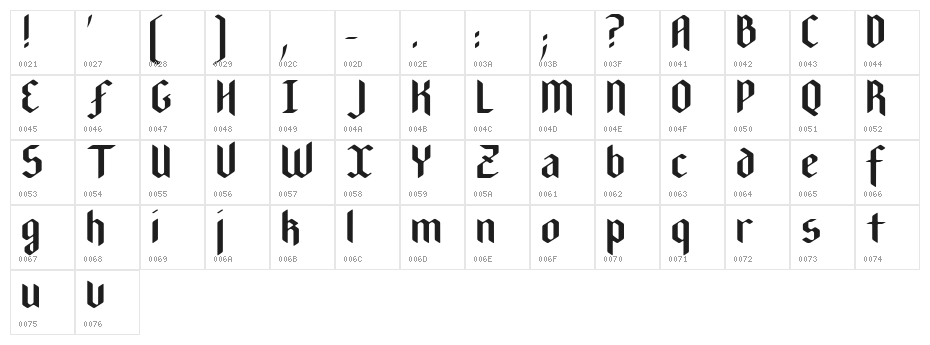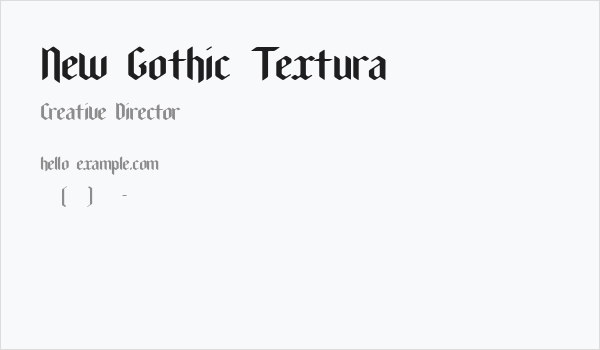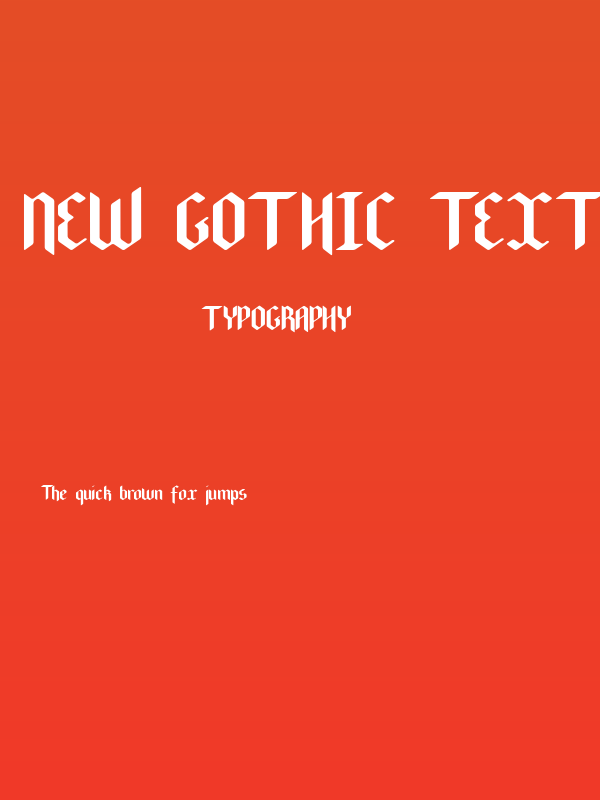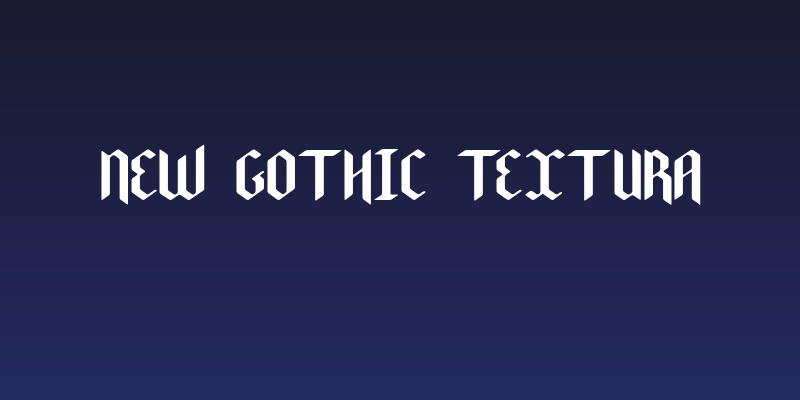
New Gothic Textura Font
New Gothic Textura Description
This font features a classic blackletter style with sharp, angular lines and a distinct medieval aesthetic. The uppercase letters are bold and commanding, while the lowercase letters maintain the same intricate design with slightly more fluidity. The characters are tightly spaced, enhancing the dense, textured appearance typical of Gothic scripts. The numerals and special characters are crafted to match the ornate style, making them suitable for decorative purposes. This font is ideal for projects that require a historical or traditional feel, such as invitations, certificates, or branding that seeks to evoke a sense of heritage.
Overall StyleVintage
Use CaseHeadlines, Logos, Decorative text
Proposed ProjectsIdeal for historical-themed designs, invitations, certificates, and branding with a traditional touch.